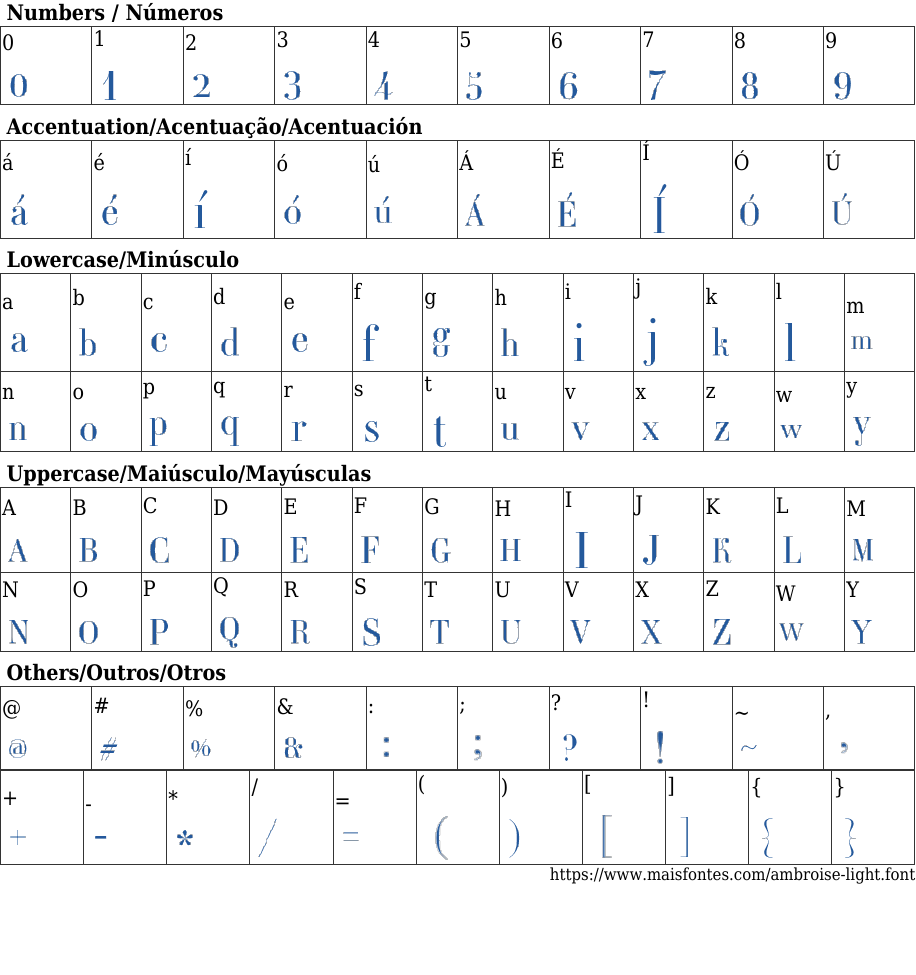
Monument Extended Light 1.000;PS 001.000;hotconv 1.0.88;makeotf.lib2.5. Ambroise Std Light Font Free Download ambroise firmin for free, view sample text, rating and more on fontsgeek.com Thousands of designers (famous or not) use the image font detection system to find a font or similar free fonts from an image. A serif typeface with 17 styles, available from adobe fonts for sync and. Discover the free ambroise std light font at free font download. Ambroise Std Light Font Free Download.
Download free ITC Fenice Std Light font Ambroise Std Light Font Free Download A serif typeface with 17 styles, available from adobe fonts for sync and. Thousands of designers (famous or not) use the image font detection system to find a font or similar free fonts from an image. Try free/ 3 hours desktop. A great choice for highlighting your design elements. Download ambroise firmin for free, view sample text, rating and more. Ambroise Std Light Font Free Download.
Ambroise Alternates Light Font Download For Free, View Sample Text Ambroise Std Light Font Free Download A great choice for highlighting your design elements. Thousands of designers (famous or not) use the image font detection system to find a font or similar free fonts from an image. Explore ambroise designed by jean françois porchez at adobe fonts. Installable on pc, mac, linux, ios, and android platforms. A serif typeface with 17 styles, available from adobe fonts. Ambroise Std Light Font Free Download.